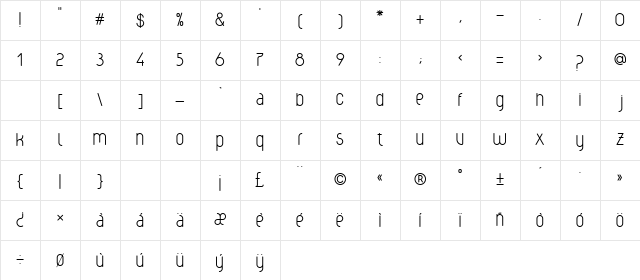
wec Regular
Foundry: Carlos Horacio Valera
Designer: Carlos Horacio Valera
Design Context for wec
wec is a composed and adaptable typeface that performs quietly and consistently across a wide range of design contexts.
Pro Tip: Use wec in both headline and body roles to test its range before committing to a single application.
Who designed the wec Regular font?